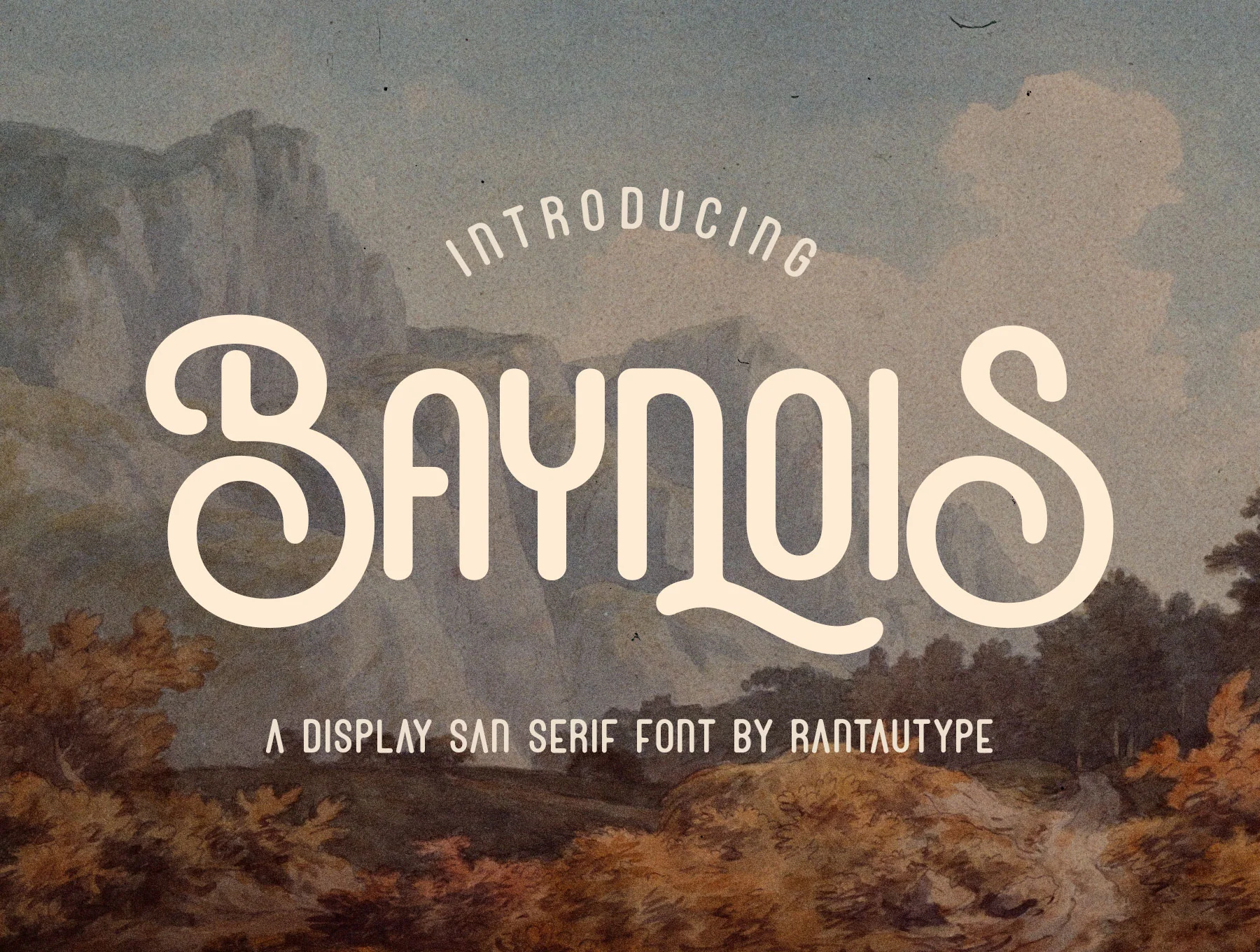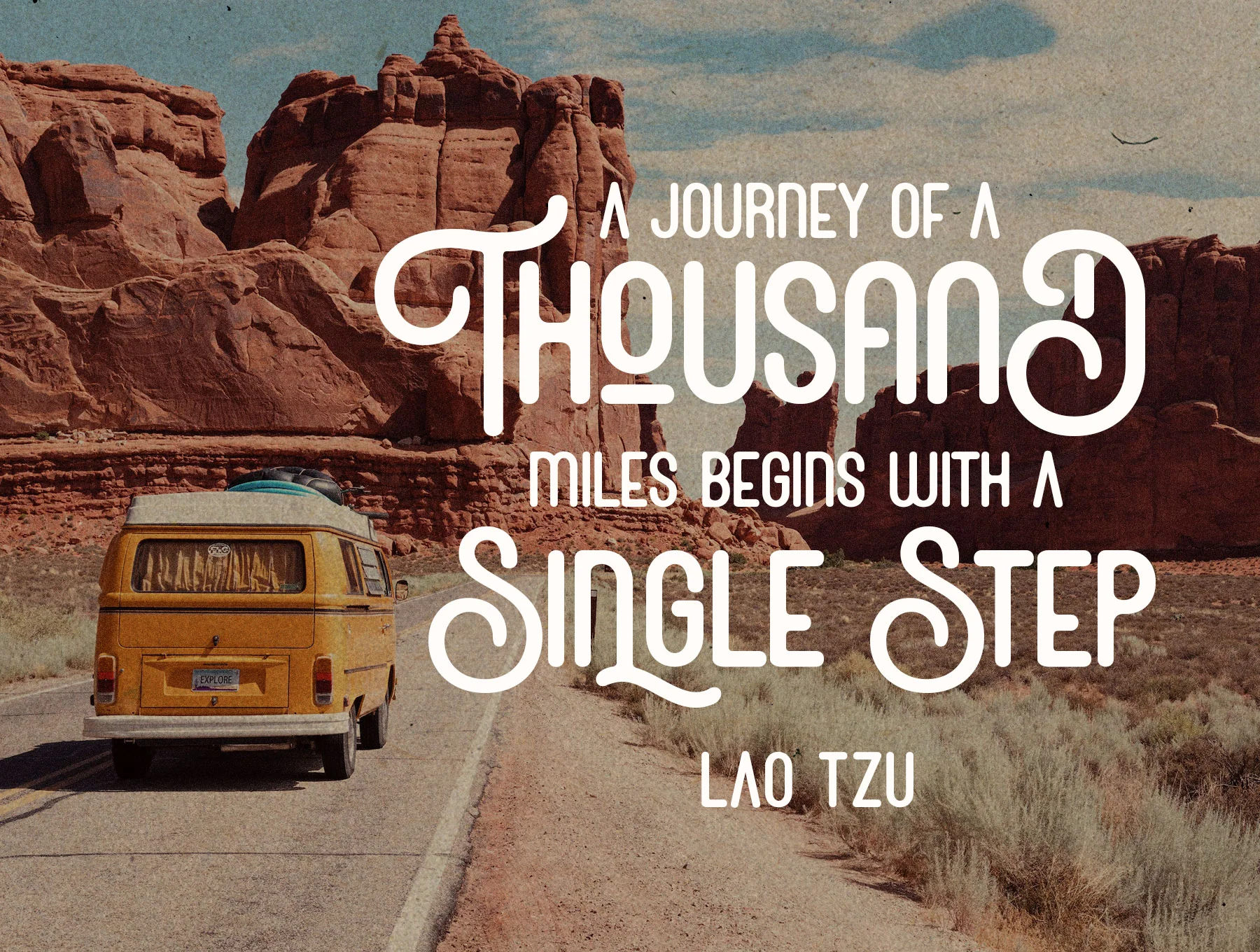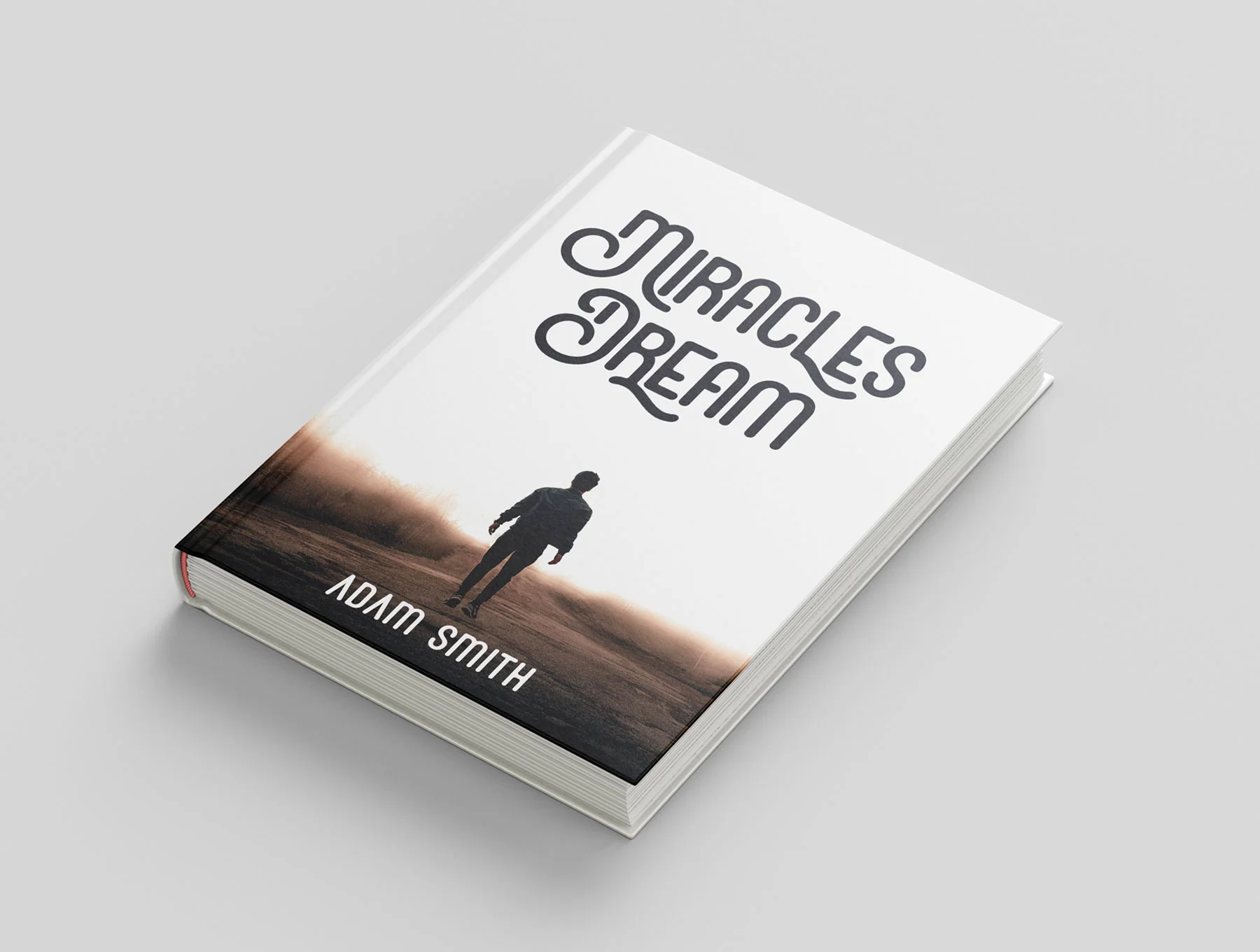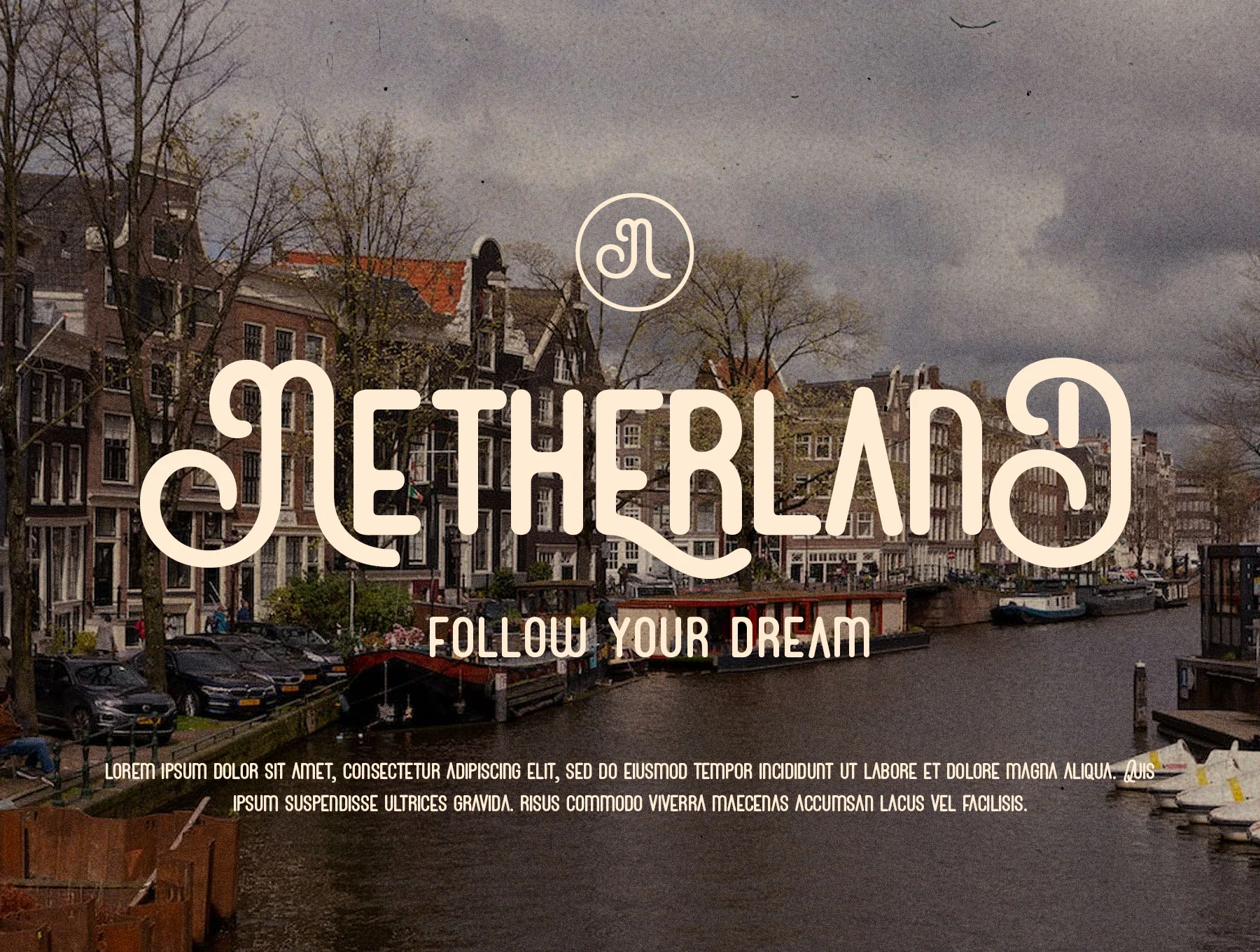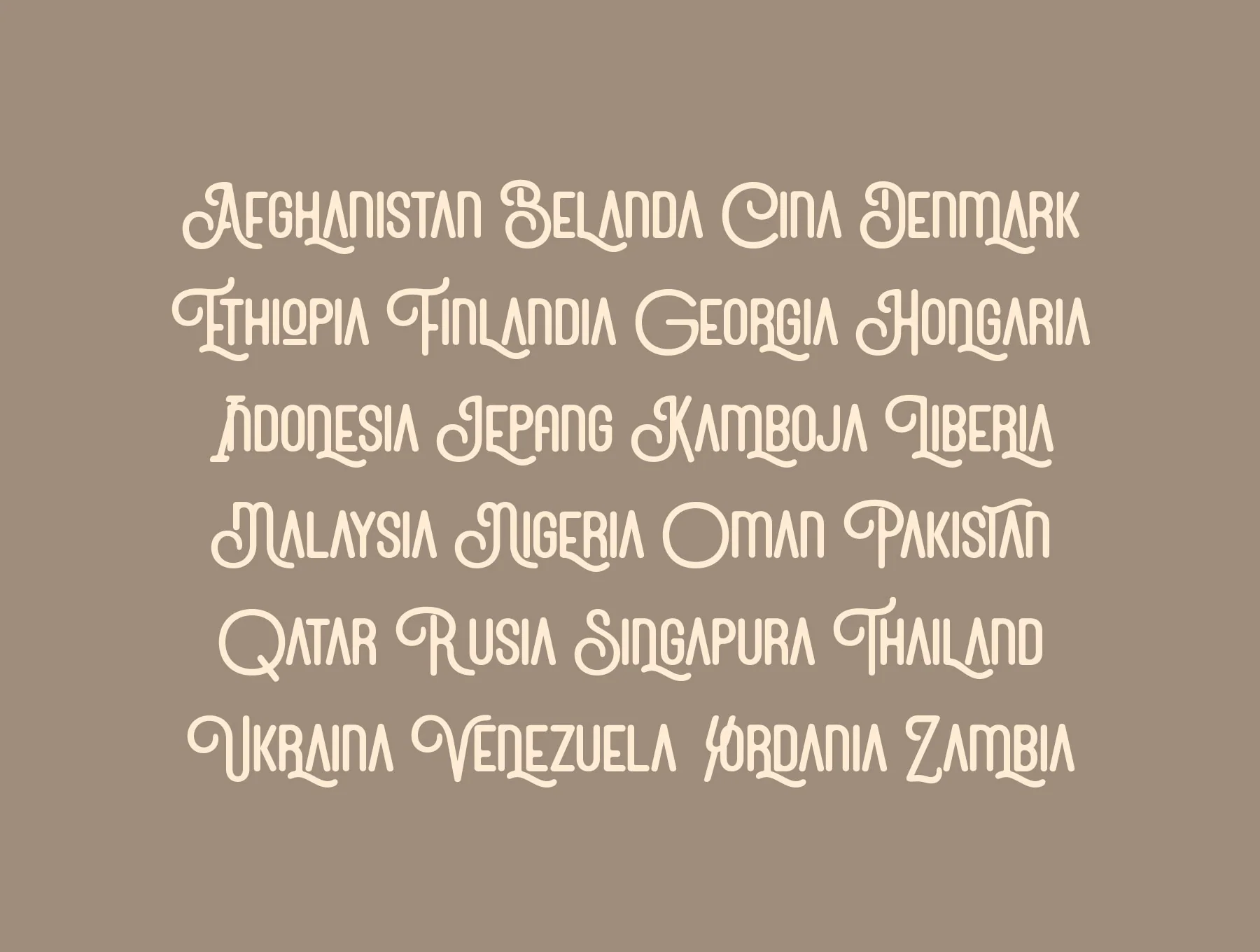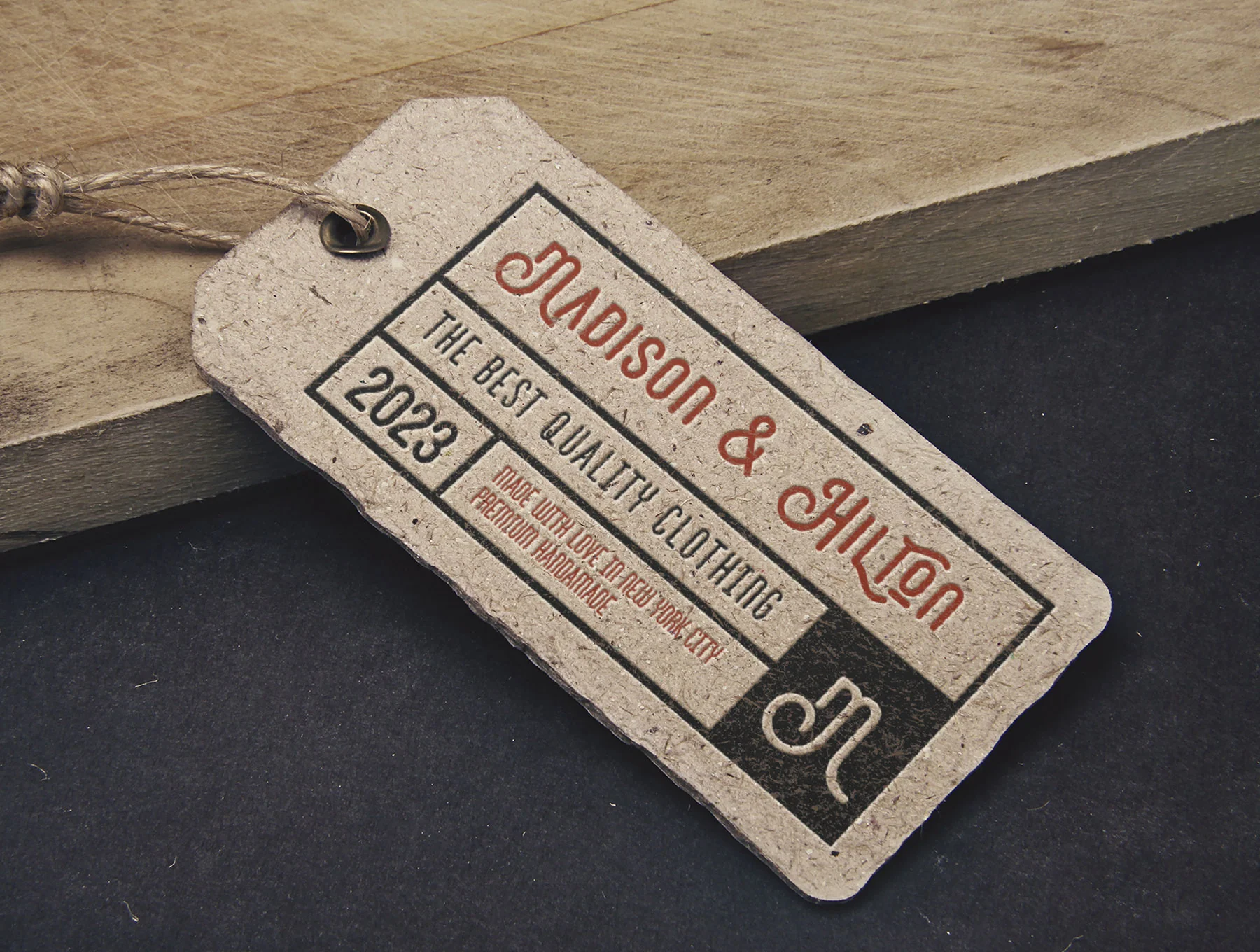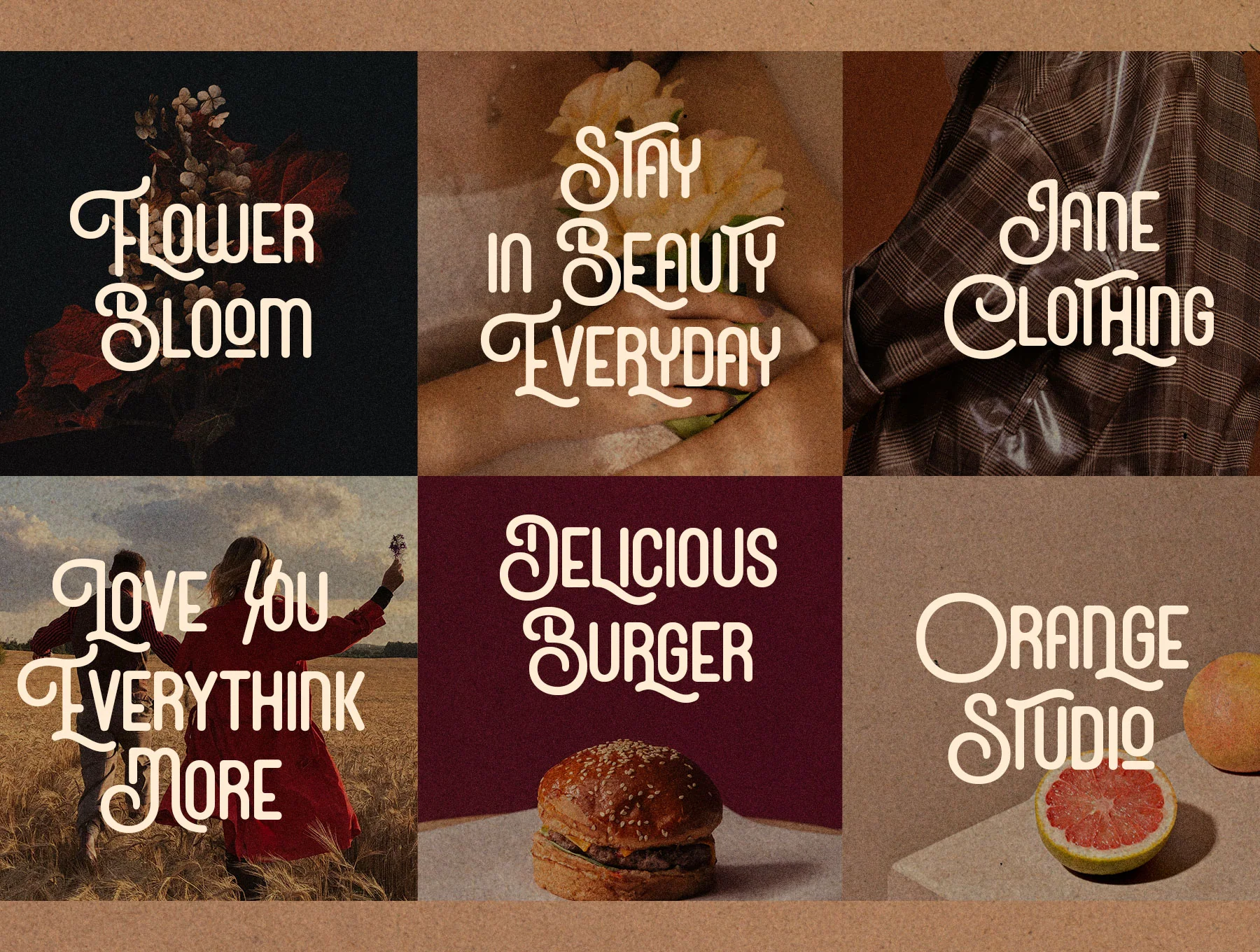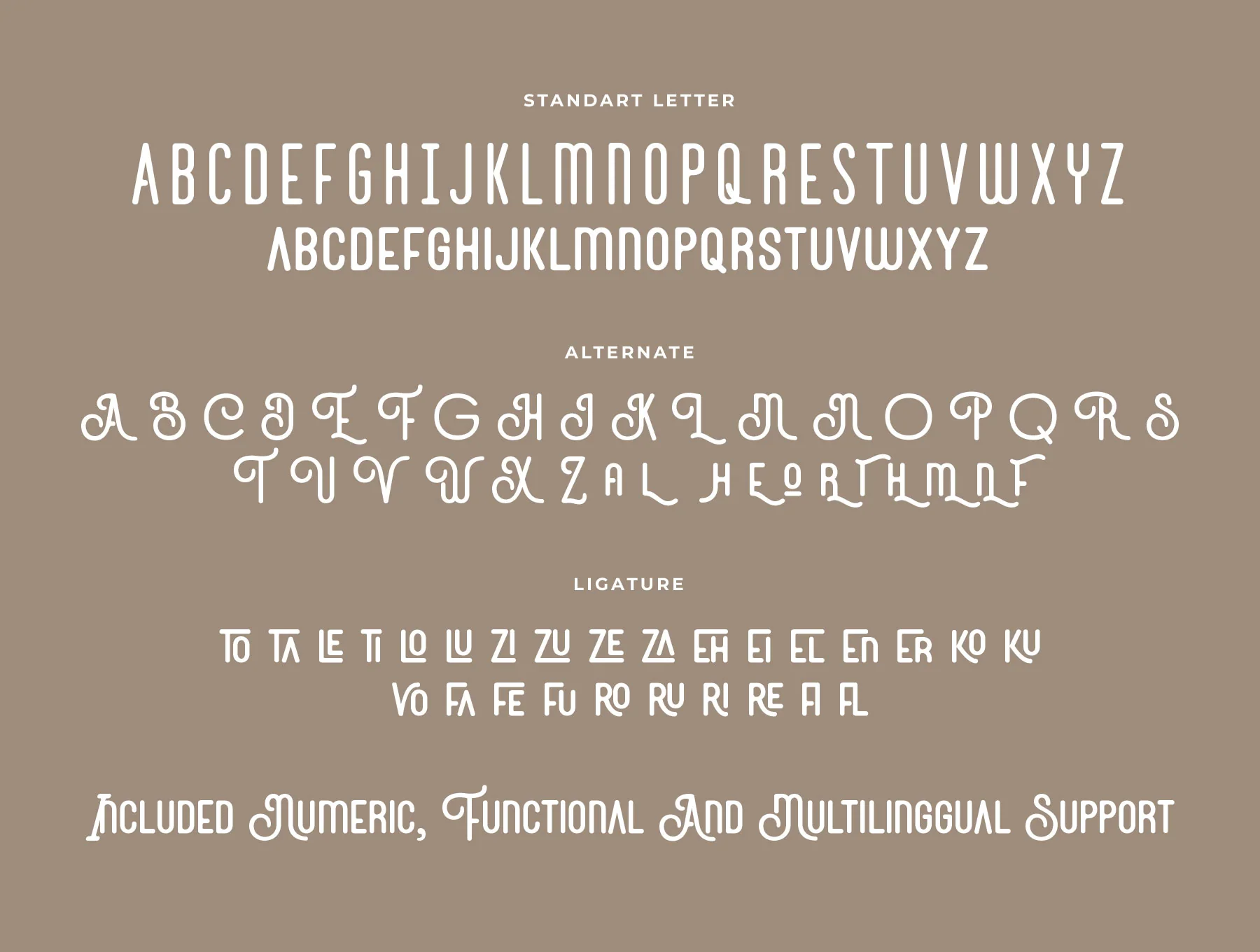
Baynois Vintage Monoline Font
Retro Single-Line Typeface
Standard A-Z and a-z characters
Numerals and functional symbols
Alternates and ligatures
Baynois by Rantautype is a handcrafted vintage monoline font inspired by classic signage, with a modern, soft, refined feel. It includes regular and italic styles, A–Z/a–z, numbers, alternates, ligatures, OpenType features, and multilingual accents. Supplied in OTF, TTF, and WOFF, it’s ideal for logos, titles, covers, branding, displays, magazines, and lifestyle designs.